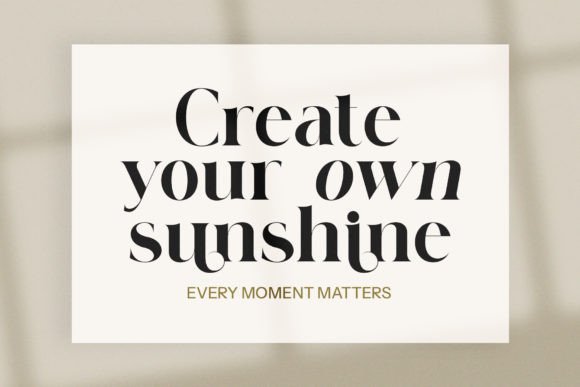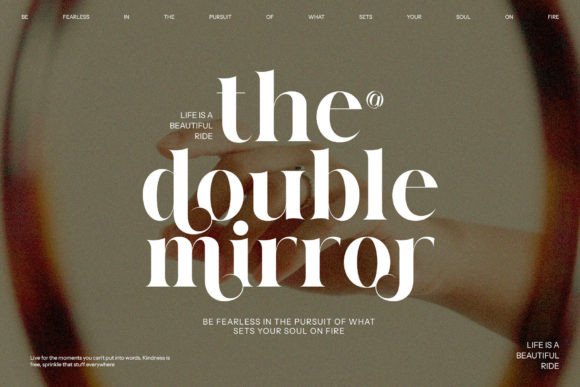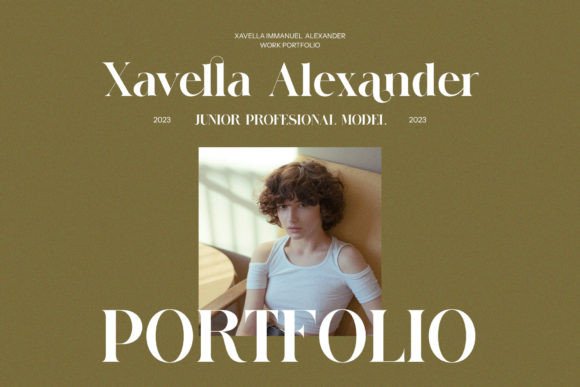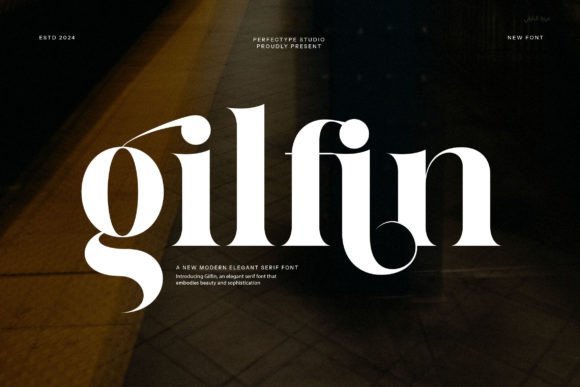
Introduction to Gilfin Font
Gilfin is a serif font that is created with elegance and luxury so it is perfect for all your design needs.
This font is equipped with many beautiful and unique ligature and alternate options This type of font is very suitable for your various needs such as branding projects, logos, social media posts, advertisements, labels, product packaging, photography, wedding designs, watermarks, invitation product designs, stationery, and any project, made at a high price.
Key Features of Gilfin Font